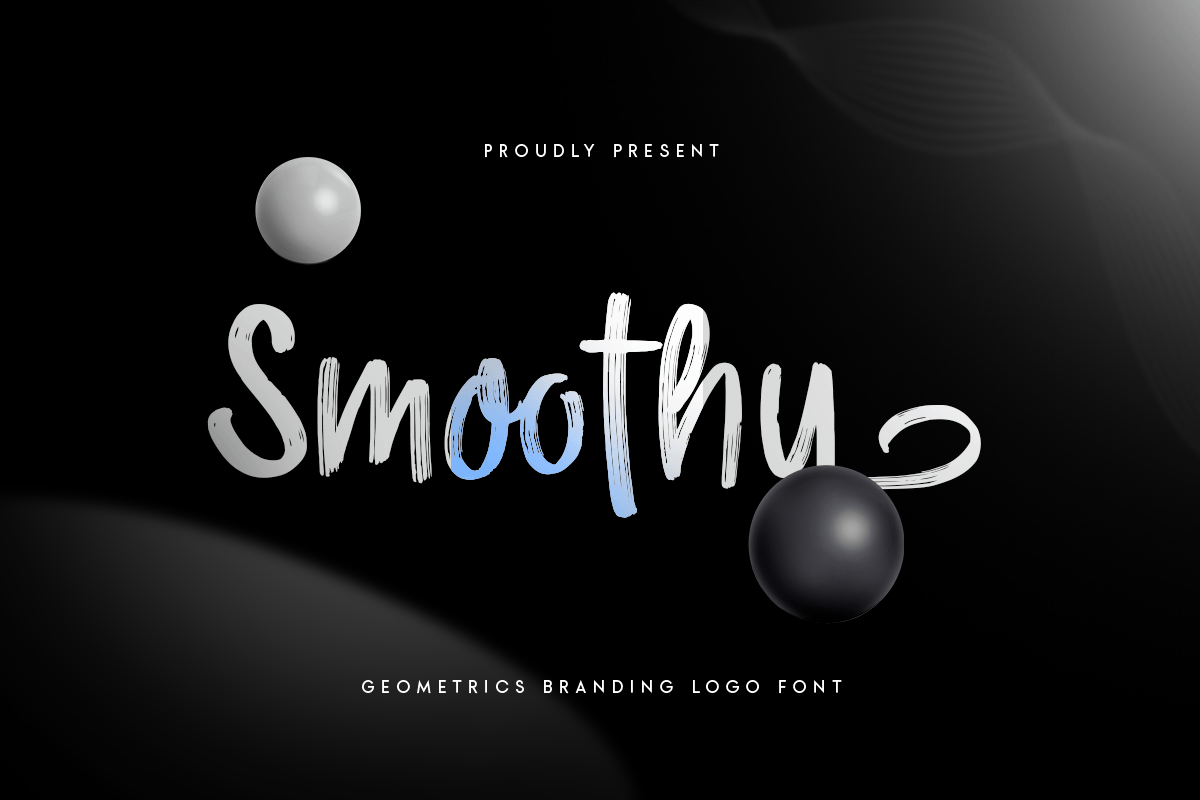
Smoothy
-Geometrics Branding Logo Font
Smoothy - Geometrics Branding Logo Font
Smoothy is a geometrics branding logo font crafted to deliver clean structure, modern clarity, and a confident visual identity. Built with precise geometric forms and a balanced rhythm, this typeface creates a sleek, professional tone that feels contemporary, reliable, and highly brand-ready.
Designed for branding-focused typography, Smoothy works seamlessly across logos, wordmarks, website headers, UI design, presentations, posters, signage, packaging, and social media graphics. Its geometric construction keeps everything sharp and consistent, helping your brand look polished and modern across both digital and print layouts.
Whether you’re building a startup identity, refining a corporate system, or creating a minimal product brand, SMOOTHY provides a clean geometric foundation that makes your typography feel smart, modern, and instantly recognizable.
Inspiration Behind Smoothy
SMOOTHY is inspired by modern geometric typography and clean identity systems—where balance, precision, and simplicity build trust. The design focuses on crisp shapes and smooth visual rhythm to support modern branding, logo systems, and digital-first communication with a sleek, contemporary feel.
Smoothy Font Features:
• Geometric letterforms optimized for branding and logo design
• Available with Regular adn Bold version for any variations
• Clean modern structure with strong identity consistency
• High readability for headlines and brand statements
• Logo design, wordmarks, and brand identity systems
• Startups, tech brands, and modern corporate branding
• UI/UX, website headers, and digital product typography
• Packaging, labels, signage, and clean promotional layouts
• Social media graphics, presentations, and marketing assets
Build a clean, modern identity with Smoothy—crafted for geometric branding logos with sleek professional clarity. ✨